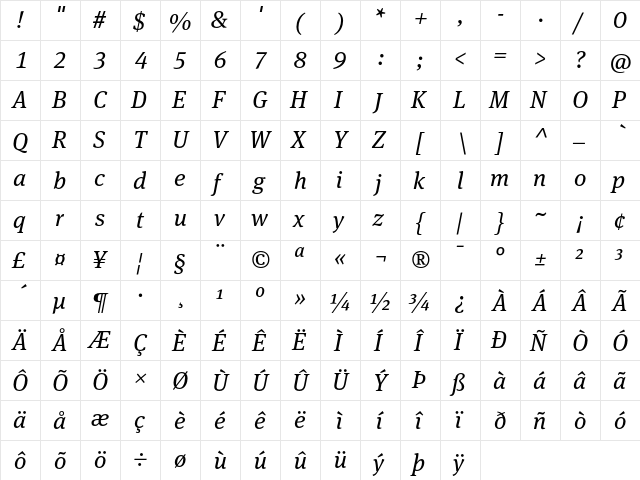
MetaSerifTf-BookIta Regular Font Preview
MetaSerifTf-BookIta Regular
Design Context for MetaSerifTf-BookIta Typeface
MetaSerifTf-BookIta carries the refined structure of traditional serif typography, with bracketed terminals and considered proportions that communicate credibility and craft.
Pro Tip: Use MetaSerifTf-BookIta for editorial body copy and considered headline work. Pair with a neutral sans for UI elements or captions to create a classic hierarchy.